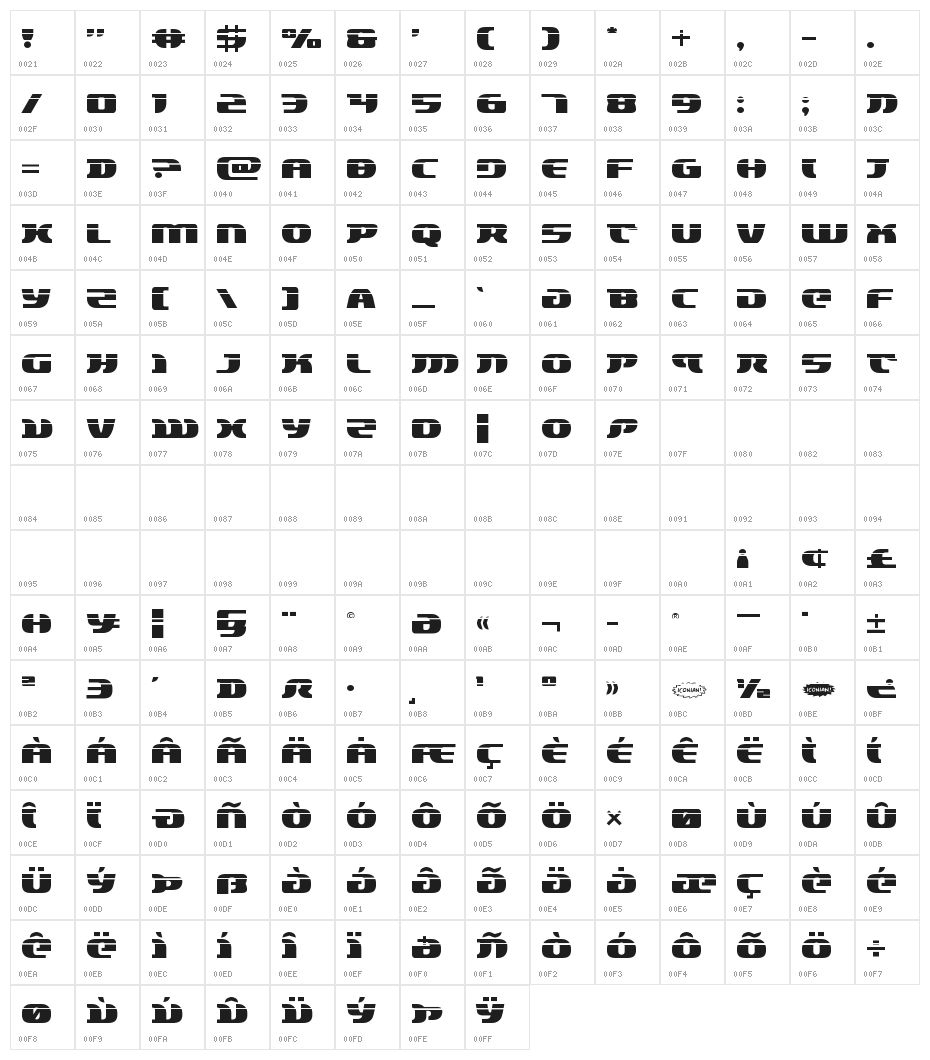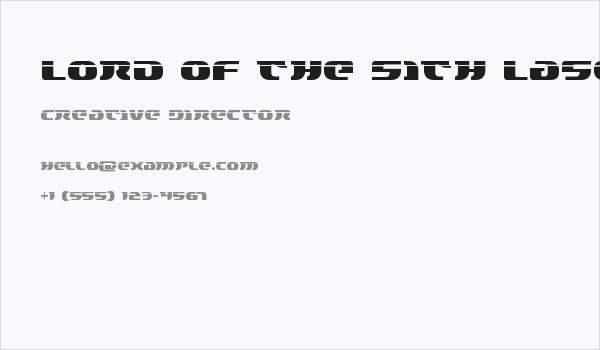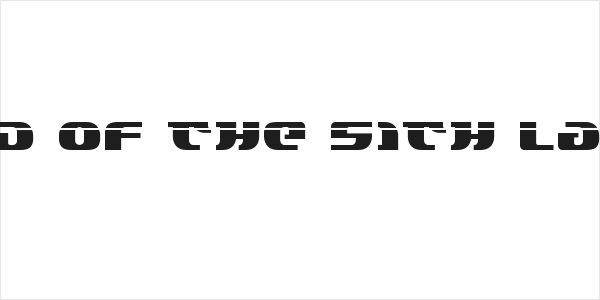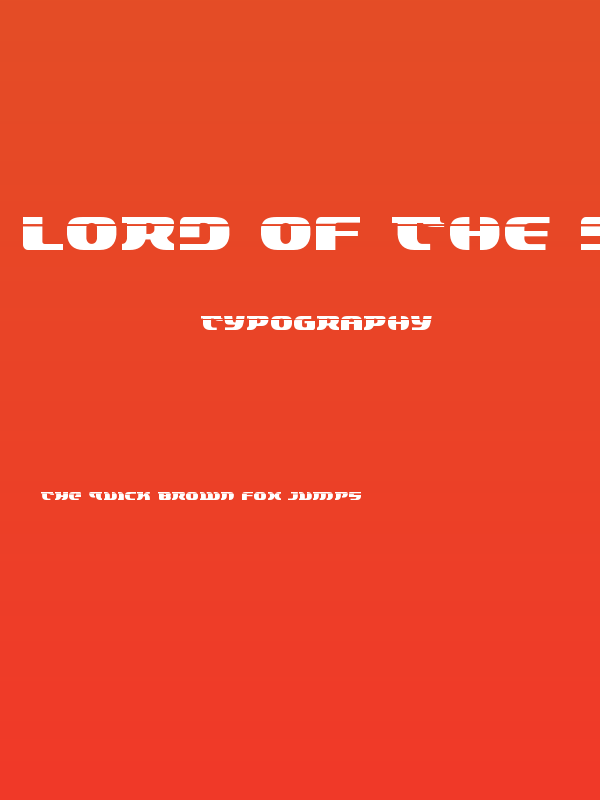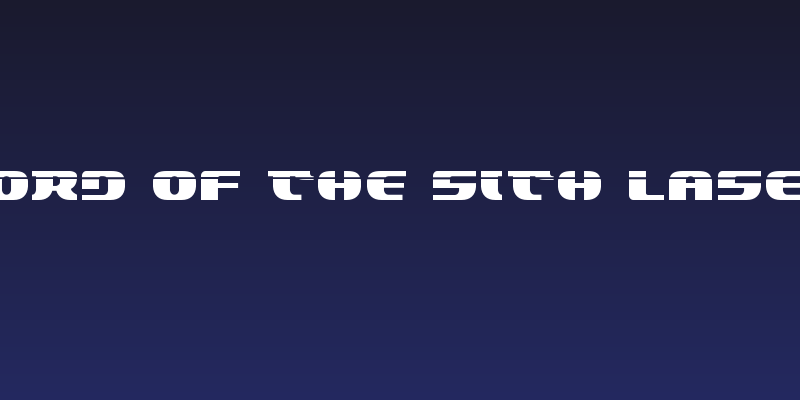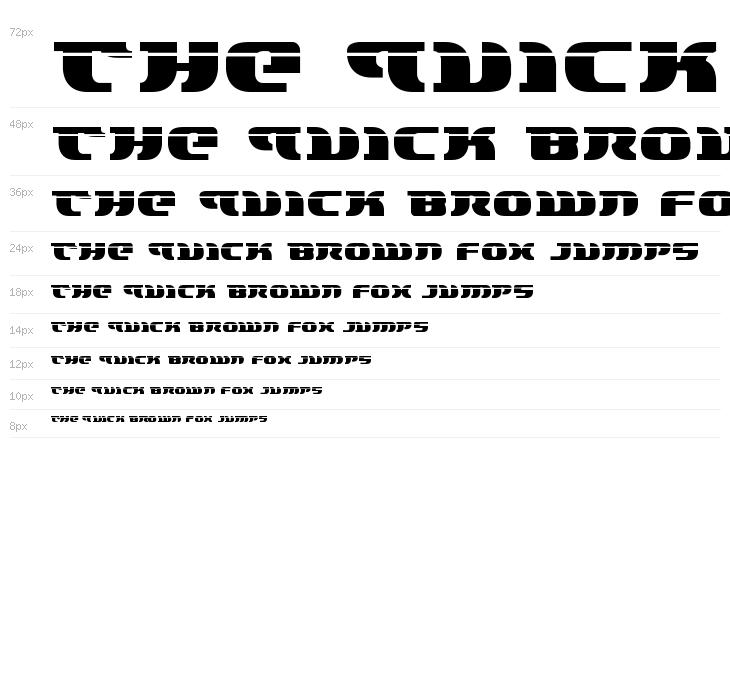
Lord of the Sith Laser Font
Lord of the Sith Laser Description
This font features a bold, futuristic design with a strong, geometric structure. The characters are constructed with a combination of solid and cut-out sections, giving them a dynamic and edgy appearance. The uppercase and lowercase letters maintain a consistent style, with sharp angles and a sense of movement. The numerals and special characters follow the same design principles, ensuring uniformity across the typeface. This font is ideal for projects that require a modern, sci-fi aesthetic, and it stands out with its unique visual impact.
Proposed ProjectsIdeal for sci-fi themed projects, video game titles, movie posters, and branding that requires a modern edge.